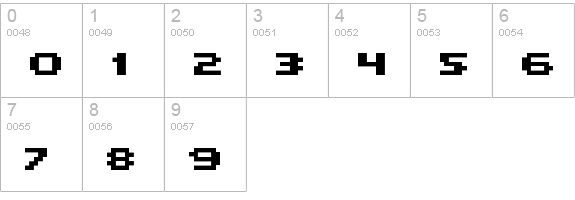
HISKYFLIPPERHIBOLD Font Details
Introducing HISKYFLIPPERHIBOLD font - a striking and versatile typeface that exudes modernity and sophistication. This unique font features bold strokes and sharp edges, making it perfect for making a statement in various design projects. With its sleek and contemporary aesthetic, HISKYFLIPPERHIBOLD font is sure to captivate and engage viewers. Best of all, this stunning font is available for free download at FontsMarket.com. Whether you're working on a branding project, poster design, or any other creative endeavor, HISKYFLIPPERHIBOLD font offers endless possibilities to elevate your designs. Embrace the boldness and elegance of HISKYFLIPPERHIBOLD font today and make your creations truly stand out.